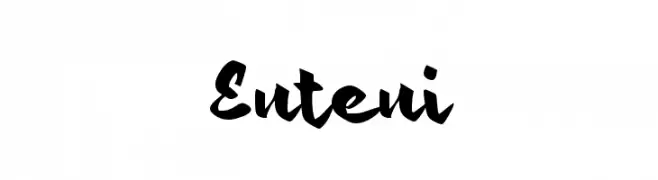
A bold, hand-drawn font with an expressive and dynamic style.
A bold, rugged font with a hand-crafted, distressed appearance.
A playful, casual handwritten font with uneven strokes and a friendly appearance.
A bold, hand-drawn font with an energetic and playful style.
A bold, playful font with a hand-drawn, whimsical style.
A bold, dynamic script font with a handwritten, expressive style.
A bold, playful handwritten font with dynamic strokes.
A bold, distressed font with a rugged, hand-painted appearance.
A playful, bold handwritten font with rounded edges and a casual style.
A bold, hand-drawn font with an expressive and dynamic style.